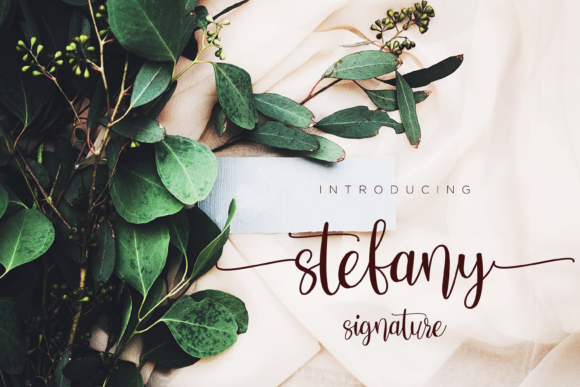
Introducing Stefany Signature Font, a Script that Captivates Hearts and Imaginations!
In a world awash with ordinary fonts, Stefany Signature emerges as a beacon of beauty and distinction. This enchanting script, meticulously crafted by the skilled hands of fiqiart, is not just a collection of letters; it's an expression of art, a symphony of flowing lines and graceful curves. Dive into the world of Stefany Signature and discover a font that will elevate your designs to new heights.
Every letter in Stefany Signature is like a delicate brushstroke, infused with a touch of elegance and timeless charm. Its hand-lettered style exudes a sense of authenticity and warmth, inviting viewers into a realm of creativity and inspiration. With its sweeping strokes and playful swashes, Stefany Signature adds a touch of magic to every project, whether it's a wedding invitation, a branding design, or a heartfelt quote.
With Stefany Signature at your disposal, you have the power to transform ordinary words into captivating visual masterpieces. Its versatility knows no bounds, making it the perfect choice for a wide range of design projects. From elegant logos that command attention to stunning social media graphics that spark engagement, Stefany Signature has the versatility to elevate any project to new heights.